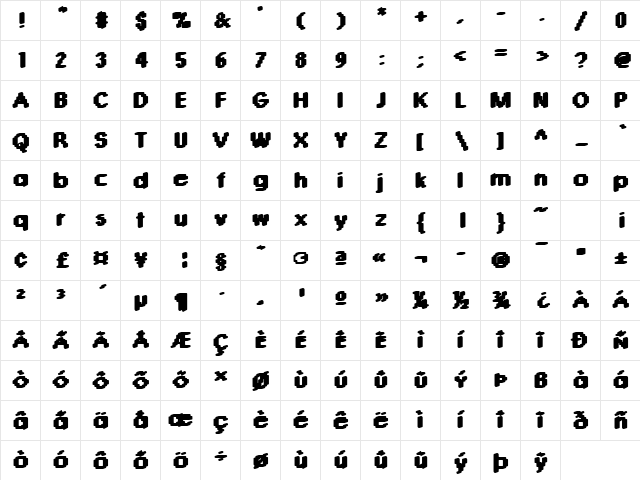
Rough09 Becker Regular Free Font
Rough09 Becker Regular
Design Context for Rough09 Becker
Rough09 Becker embraces imperfection - its rough, textured character adds raw authenticity to designs that want to feel lived-in and unconventional.
Pro Tip: Use Rough09 Becker at larger sizes where the texture and irregularity of each letterform can be clearly seen - it loses its character at small sizes.